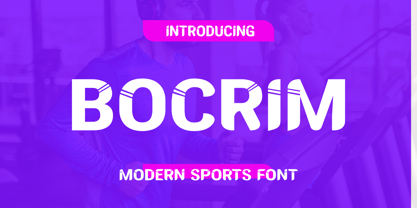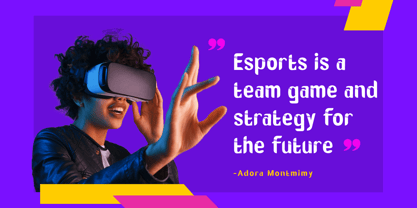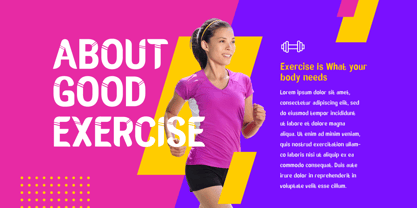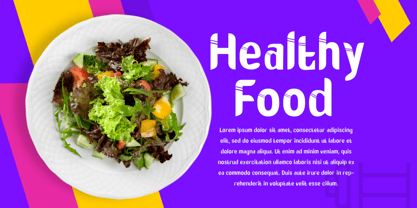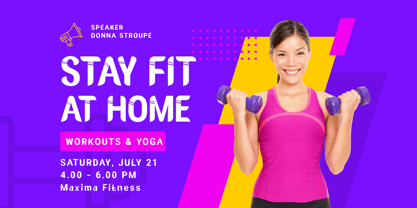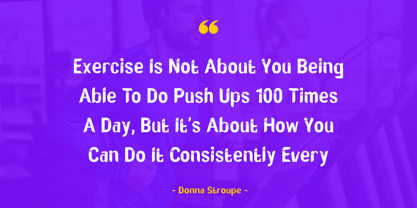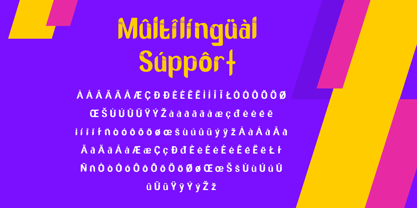
Bocrim
The Bocrim Font Family was designed by Murozakul Akhsan and published by Trabas Kriya. Bocrim contains 1 styles. More about this family
Bocrim is a sport font that’s all about energy. Its dynamic, angular characters make it perfect for sports logos, team jerseys, and any design where you want to convey a sense of action and excitement. With Bocrim, your designs will always be full of energy.
- All glyphs and Feature
- PUA Encoded Characters, Fully accessible without additional design software.
- Fonts include Multilingual: Support for 85 languages.
Afrikaans, Albanian, Asu, Basque, Bemba, Bena, Breton, Catalan, Chiga, Cornish, Croatian, Czech, Danish, Dutch, Embu, English, Esperanto, Estonian, Filipino, Finnish, French, Friulian, Galician, Gusii, Hungarian, Indonesian, Irish, Italian, Kabuverdianu, Kalenjin, Kamba, Kikuyu, Kinyarwanda, Latvian, Lithuanian, Lower, Sorbian, Luo, Luxembourgish, Luyia, Machame, Makhuwa-Meetto, Makonde, Malagasy, Maltese, Manx, Meru, Morisyen, North, Ndebele, Norwegian Bokmål, Norwegian Nynorsk, Nyankole, Oromo, Polish, Portuguese, Quechua, Romanian, Romansh, Rombo, Rundi, Rwa, Samburu, Sango, Sangu, Scottish, Gaelic, Sena, Serbian, Shambala, Shona, Slovak, Slovenian, Soga, Somali, Spanish, Swahili, Swedish, Swiss German, Taita, Teso, Turkish, Upper Sorbian, Uzbek (Latin), Volapük, Vunjo, Walser, Zulu.